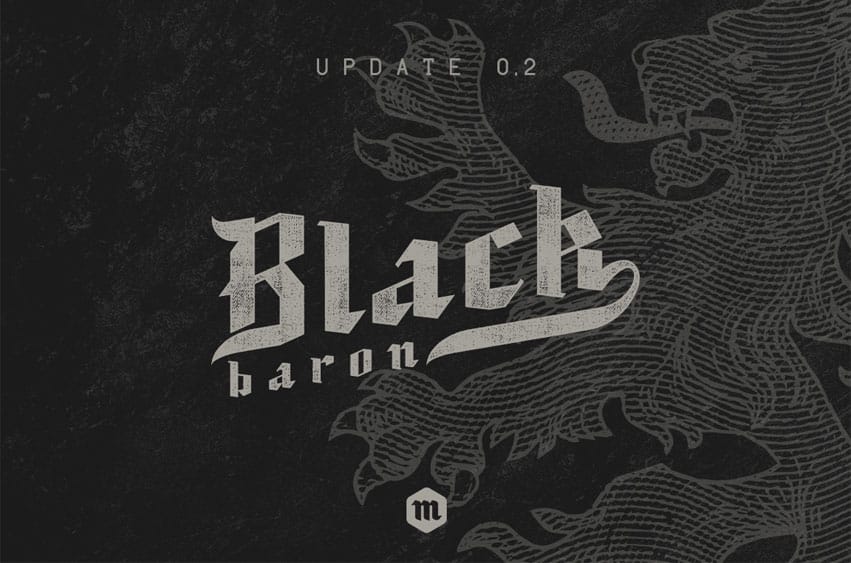
Black Baron Font Inspired by medieval script lettering with an air of vintage/retro style.
Black Baron is suitable for any project that requires a medieval feel.